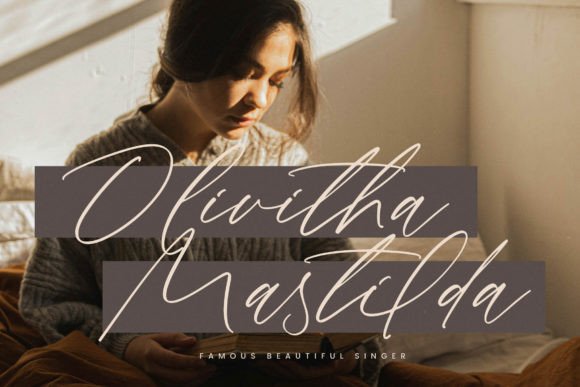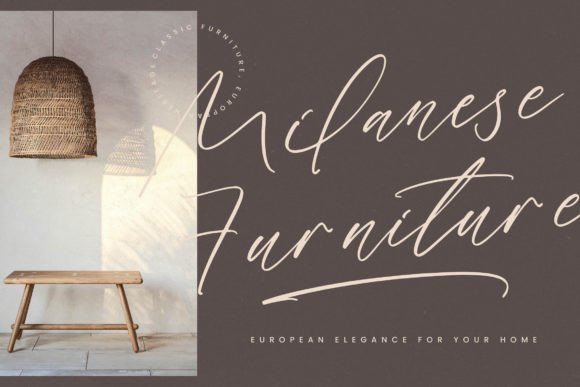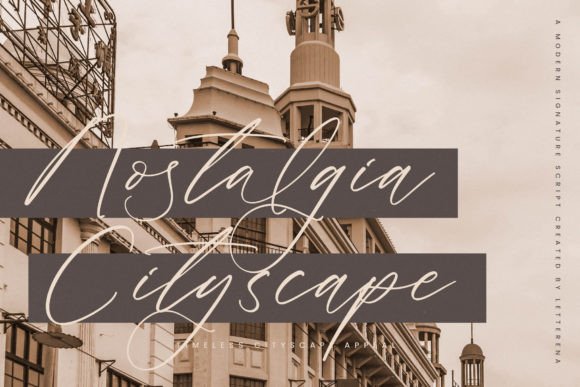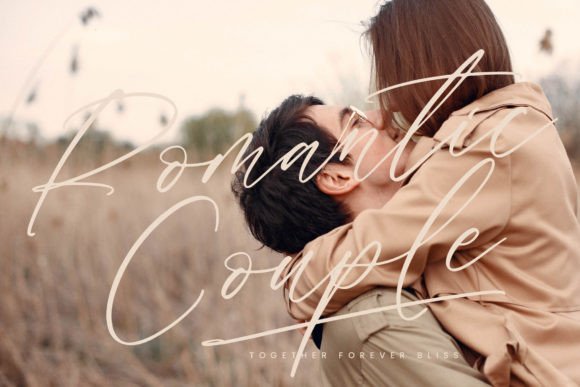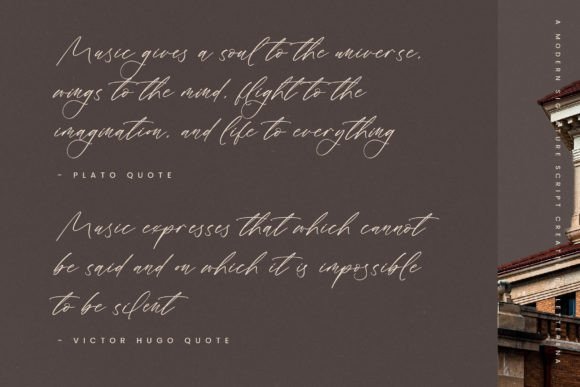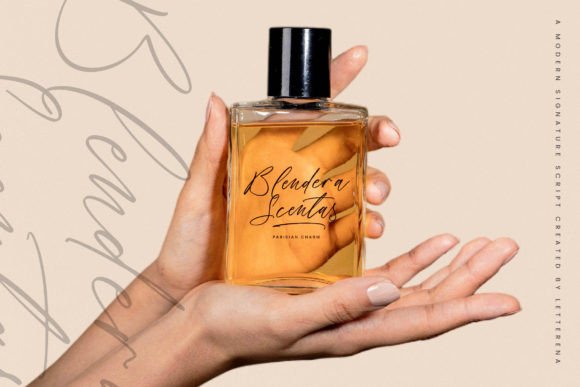
Adding a Personal Touch to Your Designs
Have you ever found yourself staring at a blank page, trying to come up with the perfect font to match the tone and feel of your project? It’s a creative moment we’ve all been in, searching for that one font that speaks to us and makes our design pop.
Enter Centtores Pasture Font, a stylish and modern handwritten font that’s designed to capture the essence of natural handwriting. With its flowing and elegant design, it’s perfect for adding a personal touch to invitations, logos, quotes, and more.
For designers, Centtores Pasture Font is a valuable addition to any font collection. Its versatility and unique style make it a great choice for a wide range of projects, from wedding invitations to branding and marketing materials.
Centtores Pasture Font Key Features
- Font Family: Centtores Pasture Font is a unique, hand-drawn font family designed for various uses, including typography and graphic design.
- Size: The font family includes multiple font weights and styles, ranging from 100 to 900, with corresponding italic and bold-italic variations.
- Unique Characteristics: The font features a mix of organic and geometric elements, creating a distinctive, whimsical feel that is perfect for creative projects and branding.
Centtores Pasture Font Review
Overall, I’m a fan of the Centtores Pasture Font. It’s got a unique, whimsical feel to it that could add a lot of personality to the right project. ✨
- The font’s playful, handwritten feel makes it perfect for titles, headings, and other display text.
- It’s highly customizable, with a wide range of weights and styles to choose from.
- The font is well-suited for use in digital products, such as apps, websites, and social media platforms.
- The font may not be as readable at smaller sizes, which could make it challenging to use in certain contexts. ⚠️
- While the font is highly customizable, some users may find the many options overwhelming.
- The font’s unique style may not be to every user’s taste, which could limit its appeal in certain projects.
Overall, I think the Centtores Pasture Font is a great addition to any designer’s toolkit. With its playful feel and high level of customizability, it’s perfect for projects that need a bit of personality and flair. However, it may not be the best choice for projects that require a more formal or serious tone.
Centtores Pasture Font is suitable for various design projects, including:
- Logo designs
- Branding materials (e.g. business cards, letterheads)
- Advertising materials (e.g. posters, flyers)
- Editorial designs (e.g. magazines, newspapers)
To get the most out of Centtores Pasture Font, consider the following tips:
- Watercolor textures to give the design a dreamy, ethereal quality.
- Hand-drawn illustrations of woodland creatures, such as rabbits, foxes, or birds.
- Green and earthy color palette to evoke the feeling of a forest glade.
- Distressed textures to give the design a worn, vintage look.
- Vintage-style graphics of fruits, vegetables, or other menu items.
- Warm and earthy color palette to evoke the feeling of a rustic farmhouse.